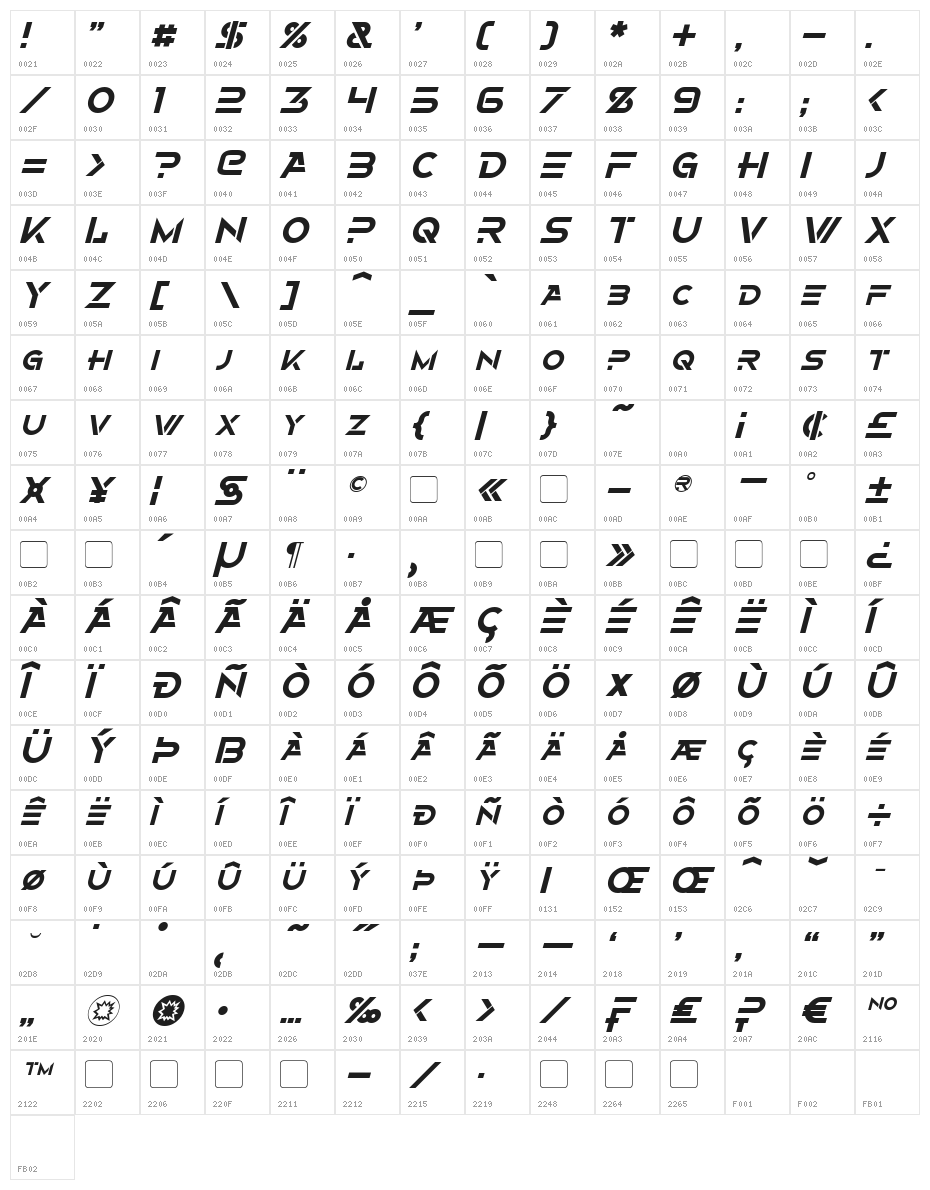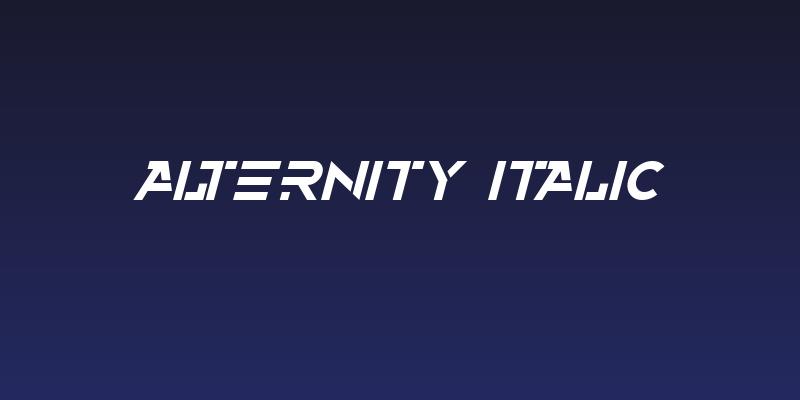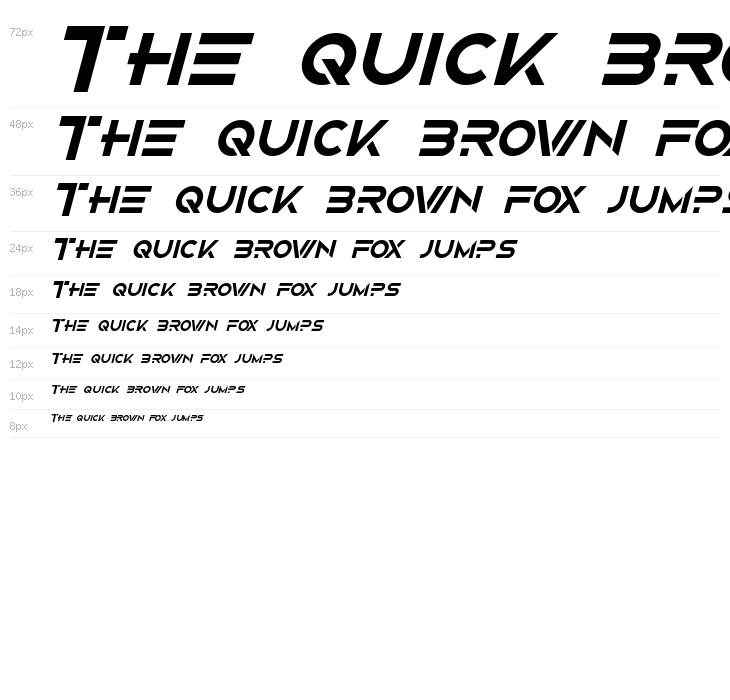
Alternity Italic Font
Alternity Italic Description
This font features a futuristic and dynamic design with a distinct italic slant, giving it a sense of motion and speed. The characters are bold and angular, with sharp edges and a geometric structure that enhances its modern appeal. The uppercase and lowercase letters maintain a consistent style, while the numerals and special characters integrate seamlessly into the overall design. The font's unique style makes it suitable for projects that require a contemporary and energetic look.
Proposed ProjectsIdeal for technology branding, sports team logos, video game titles, and sci-fi themed designs.